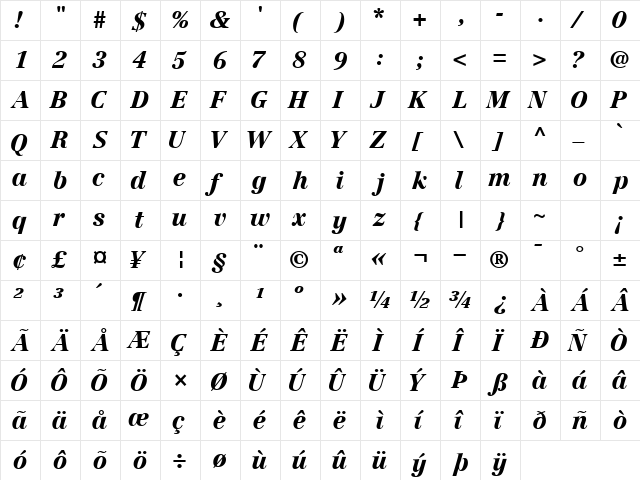
CenturyRepriseBlackSSK Italic
Design Context for CenturyRepriseBlackSSK Typeface
CenturyRepriseBlackSSK is a composed and adaptable typeface that performs quietly and consistently across a wide range of design contexts. The slanted form adds forward momentum and visual energy.
Pro Tip: Use CenturyRepriseBlackSSK for emphasis, pull quotes, and subheadings where its slanted energy can add rhythm to the layout.